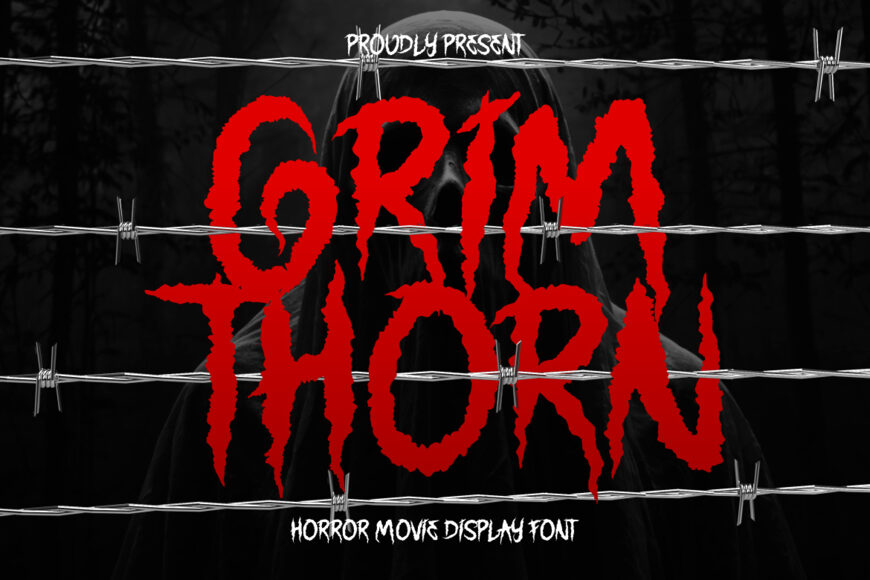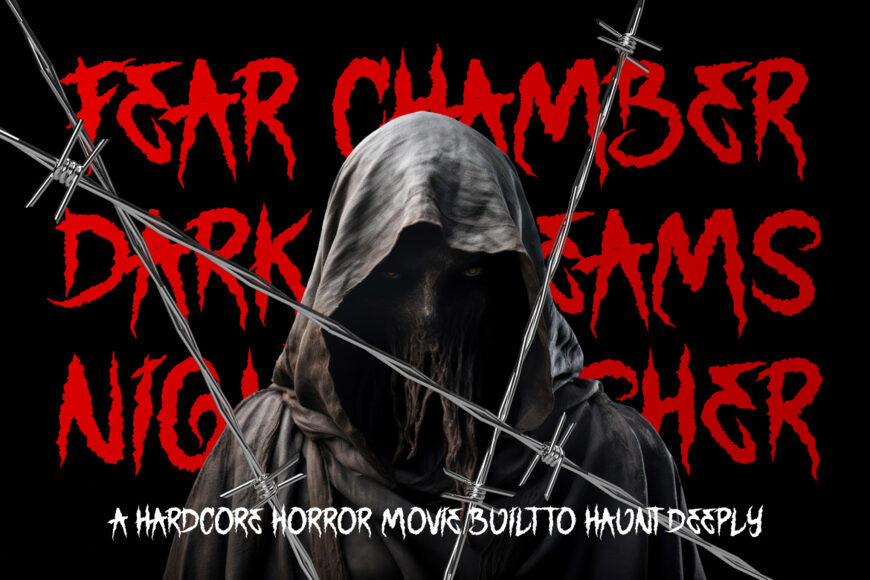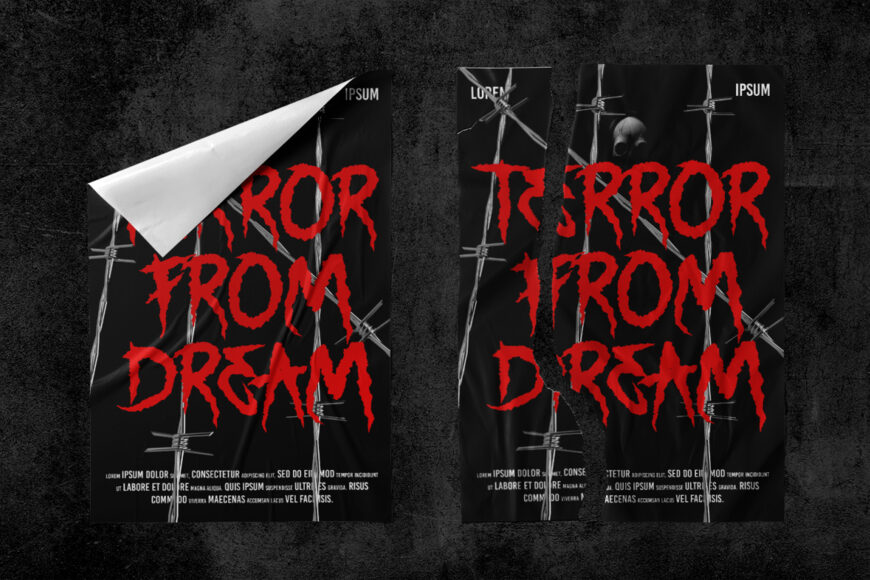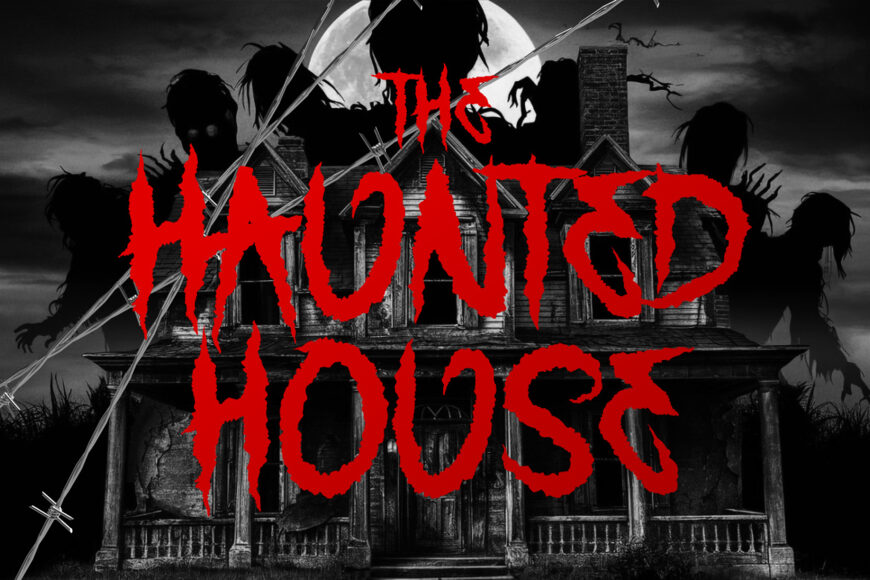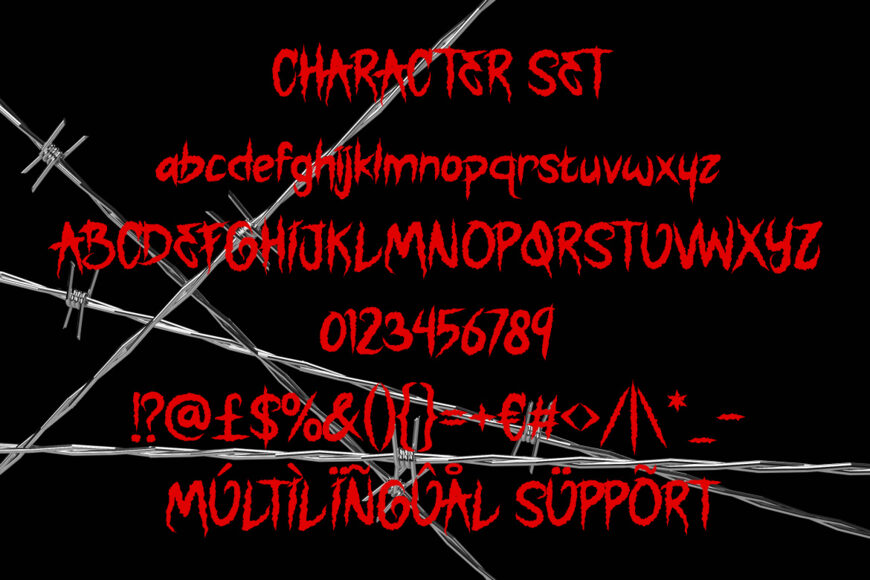
Grimthorn Font channels raw aggression through sharp, irregular letterforms and intense handcrafted details. The characters feature tall proportions, uneven strokes, jagged edges, rough contours, and thorn-like extensions that create a hostile and unsettling presence.
Every letter feels alive with tension, making words appear unpredictable and emotionally charged. This font captures themes associated with darkness, fear, horror, rebellion, mystery, and underground culture.